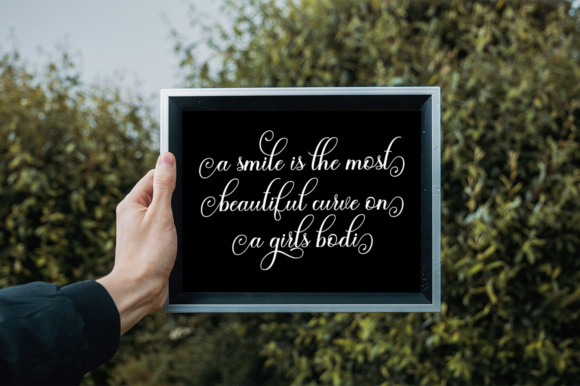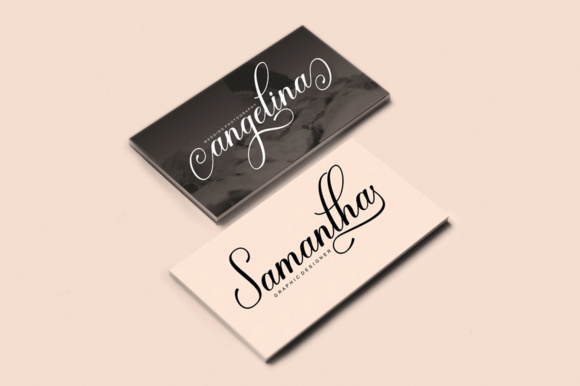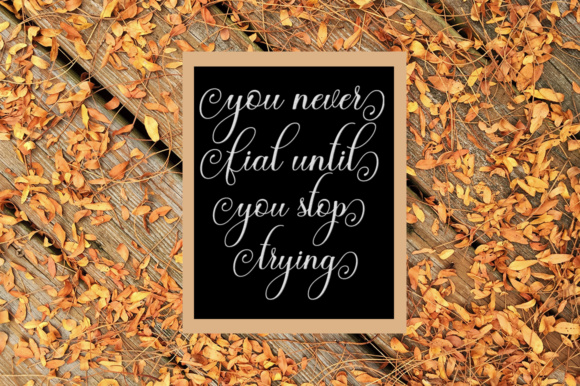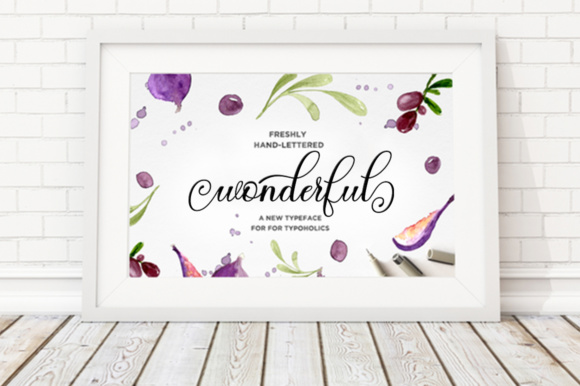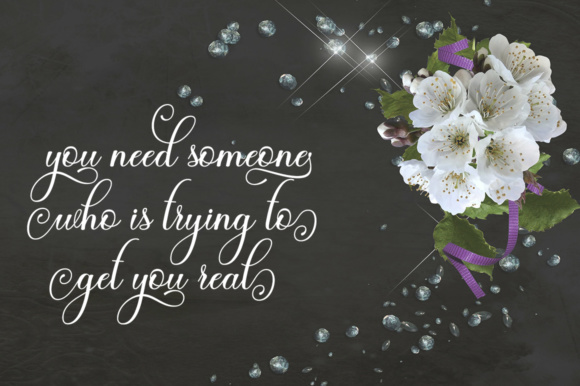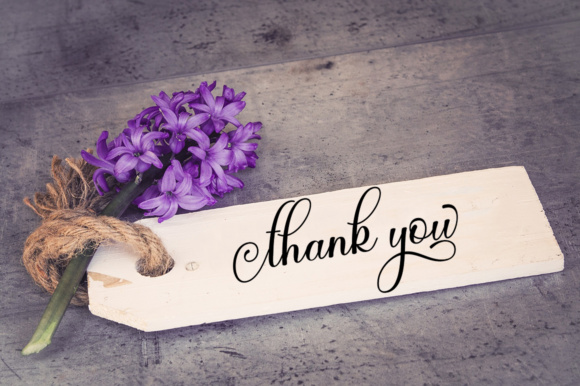
Bunglone Font
About Bunglone Font
Bunglone is a fresh modern script that comes with a lot of playful alternates.
It’s feminine and trendy, making it the perfect font for a lot of different types of projects, such as wedding invites, thank you cards, quotes and much more.